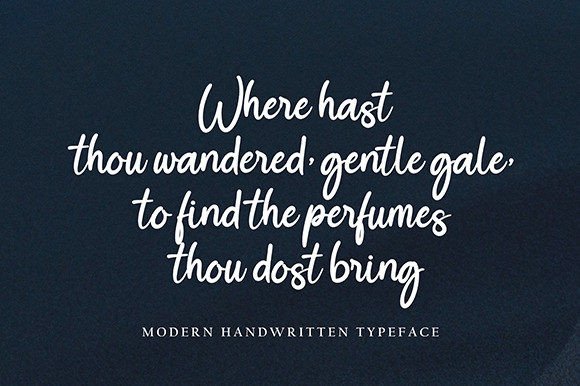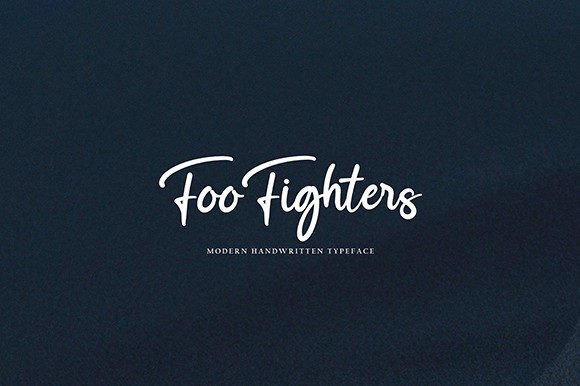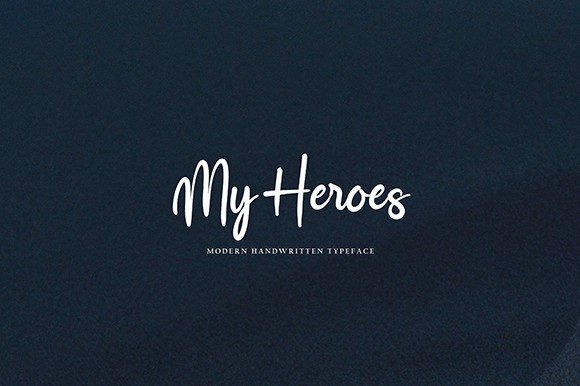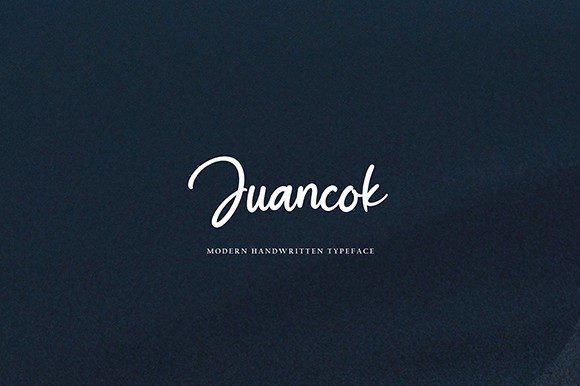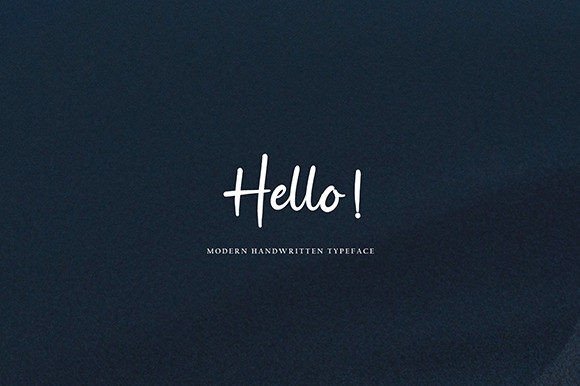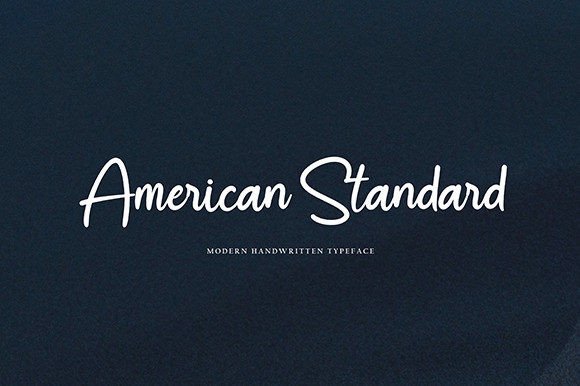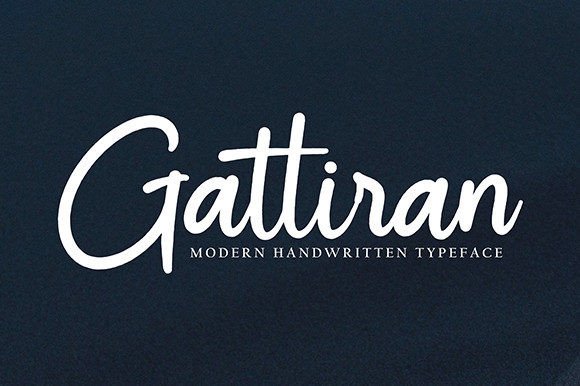
Gattiran Font: Elevate Your Designs with a Casual and Fresh Handwritten Style
In the world of typography, fonts play a crucial role in conveying the tone and personality of a design. For designers and crafters looking to add a touch of casual elegance to their creations, Gattiran Font is an excellent choice. This handwritten font is designed to bring a fresh and modern feel to any project, making it an incredible asset to your font library.
What is Gattiran Font?
Gattiran Font is a beautifully crafted handwritten font that exudes a sense of casual sophistication. Its unique and elegant style makes it perfect for a wide range of design applications, from branding and advertising to packaging and digital media. Whether you’re working on a personal project or a client’s, Gattiran Font is sure to impress.
Key Features of Gattiran Font
- Casual and Fresh Style: Gattiran Font boasts a casual and fresh handwritten style that is perfect for designers looking to add a touch of elegance to their creations.
- Versatility: This font is incredibly versatile and can be used for a wide range of design applications, from print to digital media.
- Elegant and Modern: Gattiran Font features an elegant and modern design that is sure to elevate any creation.
- Easy to Read: The font is designed to be easy to read, making it perfect for body text and headlines.
Benefits of Using Gattiran Font
So, why should you choose Gattiran Font for your next design project? Here are just a few benefits of using this amazing font:
- Adds a Personal Touch: Gattiran Font adds a personal touch to any design, making it perfect for projects that require a human touch.
- Enhances Brand Identity: This font can help enhance your brand identity by adding a unique and recognizable style to your designs.
- Increases Legibility: Gattiran Font is designed to be easy to read, making it perfect for body text and headlines.
- Perfect for Digital Media: This font is optimized for digital media, making it perfect for websites, social media, and more.
How to Use Gattiran Font
Using Gattiran Font is easy! Here are a few tips to get you started:
- Pair it with Other Fonts: Gattiran Font pairs well with other fonts, making it easy to create stunning font combinations.
- Use it for Headlines and Body Text: This font is perfect for both headlines and body text, making it a versatile addition to your font library.
- Experiment with Colors and Textures: Gattiran Font looks great in a variety of colors and textures, so don’t be afraid to experiment and find the perfect look for your design.